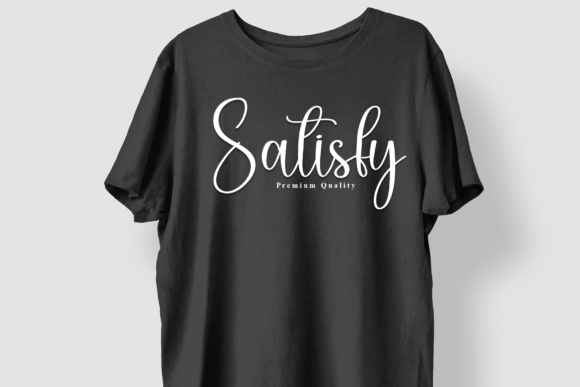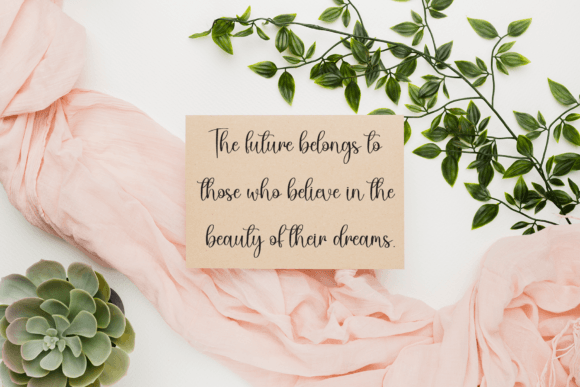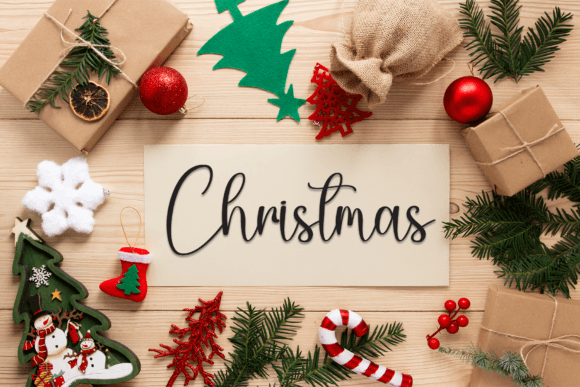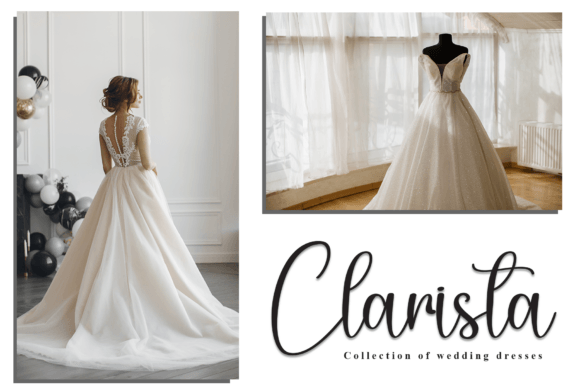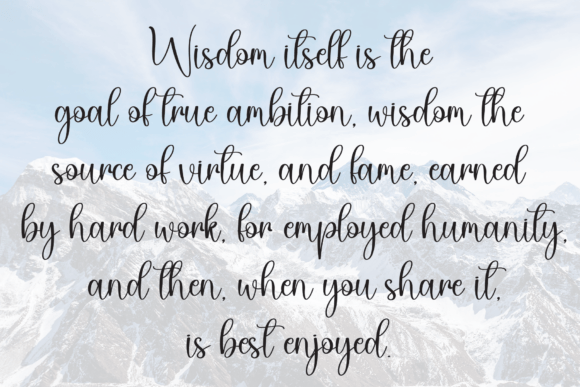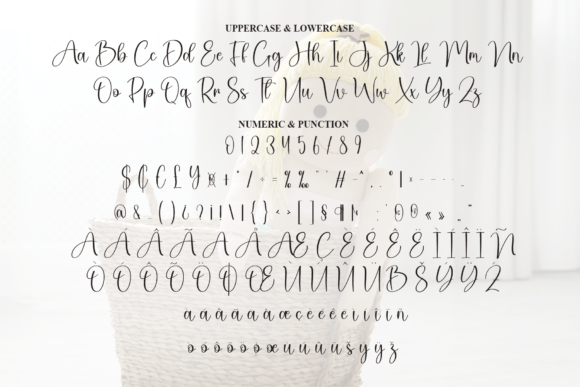
Babydoll Font: Elevate Your Designs with Elegance and Charm
In the world of typography, few fonts manage to capture the essence of elegance and charm as effectively as the Babydoll Font. This stylish handwritten script font has been making waves in the design community, and for good reason. Its flowing, graceful curves bring a level of sophistication and personal touch to any project, making it an ideal choice for designers and crafters looking to elevate their work.
The Characteristics of Babydoll Font
Babydoll Font is distinguished by its delicate strokes and fluid lines, which give it a unique, handcrafted feel. This font is not just a collection of letters; it’s an expression of artistry and attention to detail. Each character is designed to flow seamlessly into the next, creating a harmonious and visually appealing text that captures the reader’s attention. Whether you’re working on invitations, logos, branding materials, or any other design project, Babydoll Font adds a touch of warmth and creativity that sets it apart from more generic fonts.
The versatility of Babydoll Font is one of its most significant advantages. Its elegant and charming appearance makes it suitable for a wide range of design projects. Here are a few ways you can use Babydoll Font to enhance your designs:
- Invitations: Whether you’re planning a wedding, a baby shower, or any other special event, Babydoll Font can add a touch of class and personalization to your invitations.
- Logos and Branding: For businesses looking to establish a brand identity that exudes elegance and sophistication, Babydoll Font can be a great choice. It’s perfect for boutiques, beauty salons, and other businesses that want to convey a sense of luxury and charm.
- Stationery and Packaging: Add a personal touch to your stationery, gift tags, and product packaging with Babydoll Font. Its unique and stylish appearance can make your correspondence and products stand out.
- Digital Content: Babydoll Font can also be used in digital content, such as social media graphics, blog headers, and website titles, to give your online presence a more personalized and sophisticated look.
Why Choose Babydoll Font?
With so many fonts available to designers and crafters, what sets Babydoll Font apart? Here are a few reasons why Babydoll Font should be your go-to choice for your next project:
- Elegance and Charm: Babydoll Font offers a unique blend of elegance and charm that can elevate any design.
- Versatility: Its versatility makes it suitable for a wide range of projects, from print to digital.
- Easy to Read: Despite its elegant and flowing design, Babydoll Font remains easy to read, making it practical for both headings and body text.
- Unique and Memorable: Using Babydoll Font can make your designs more memorable and distinctive, helping you stand out in a crowded market.
Tips for Using Babydoll Font Effectively
To get the most out of Babydoll Font, consider the following tips:
- Pair with Complementary Fonts: When using Babydoll Font in a design, consider pairing it with simpler fonts to create contrast and make your text more readable.
- Adjust Letter Spacing: For a more customized look, experiment with adjusting the letter spacing. This can enhance the flow and harmony of your text.
- Use it Sparingly: While Babydoll Font is beautiful, it can be overwhelming if used excessively. Use it for headings or key messages to draw attention and add elegance.
Babydoll Font is more than just a font; it’s a design element that can transform your projects with its elegance and charm. Whether you’re a professional designer or a crafter looking to add a personal touch to your work, Babydoll Font offers a stylish and sophisticated solution. Its versatility, readability, and unique appearance make it an excellent choice for a variety of design projects. By incorporating Babydoll Font into your designs, you can create visually stunning and memorable content that stands out from the crowd.